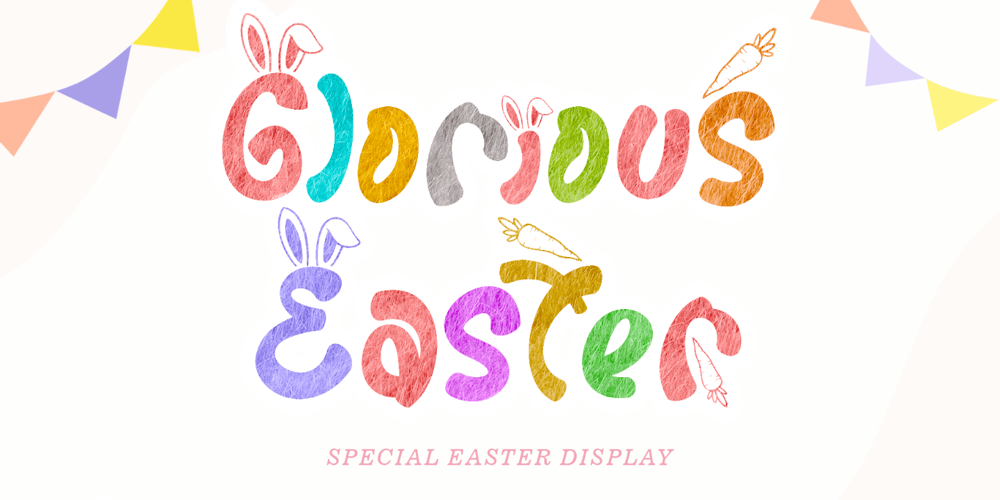
Glorious Easter
Glorious Easter font
Glorious Easter Font Family was designed by Selvia Cahya and published by Selvia Design. Glorious Easter contains 1 styles and family package options. “Glorious Easter” is a unique and cute display font with an easter theme. This font is decorated with cute bunny ears and also a carrot. “Glorious Easter” is equipped with uppercase, lowercase alternates, numerals, punctuations, and also multilingual support.